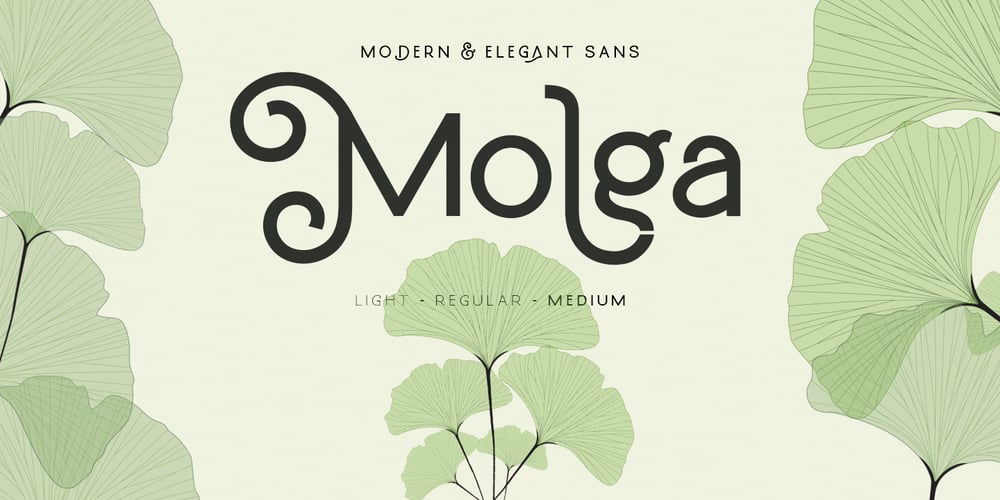
Molga Font Family was designed by Kadek Mahardika and published by Creativemedialab. Molga contains 5 styles and family package options. Molga is a modern and elegant sans serif font. It has a lot of stylistic alternates to create unique and beautiful words for Logos, headlines, Invitation cards, Wedding logo, and many more.